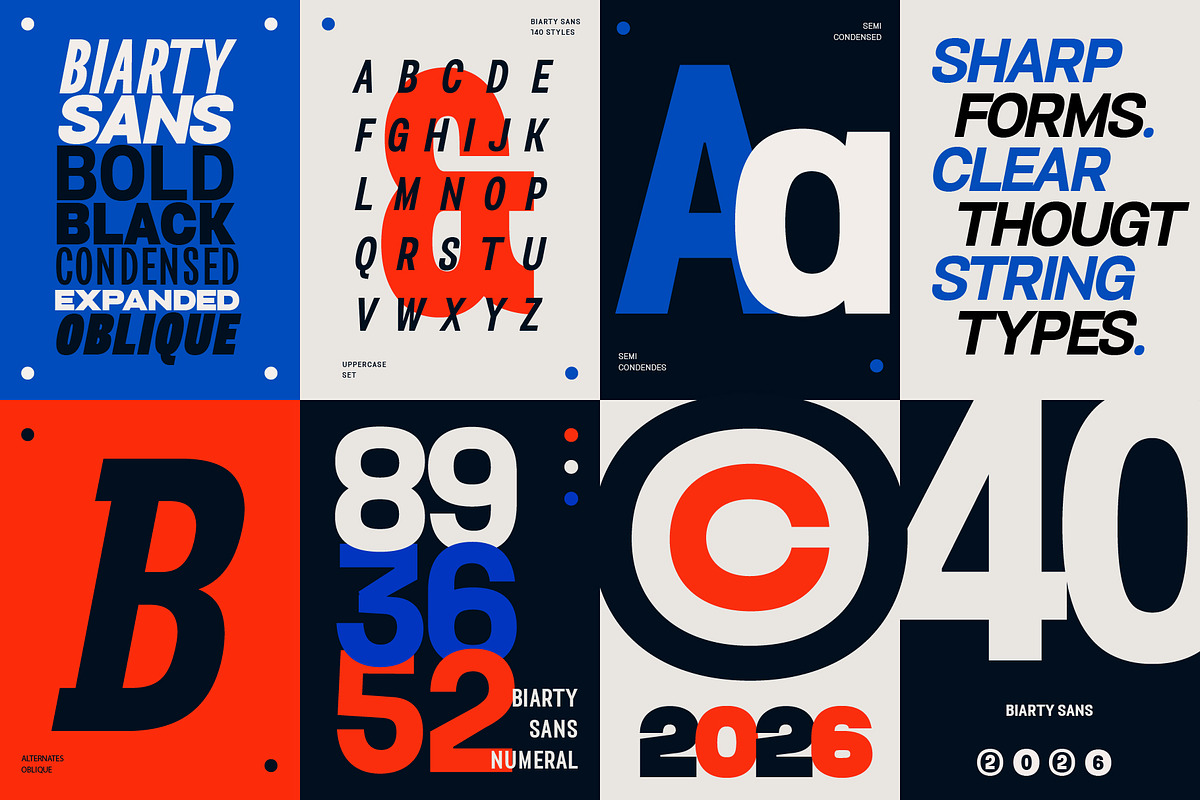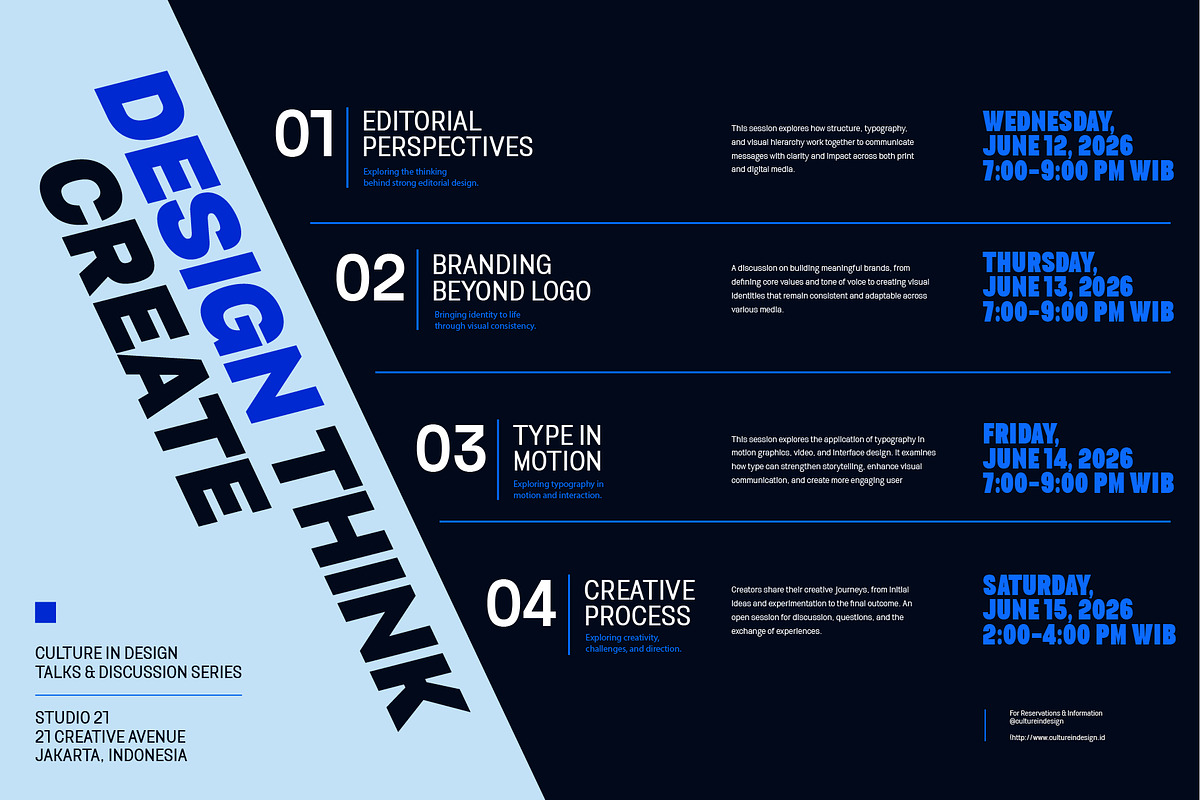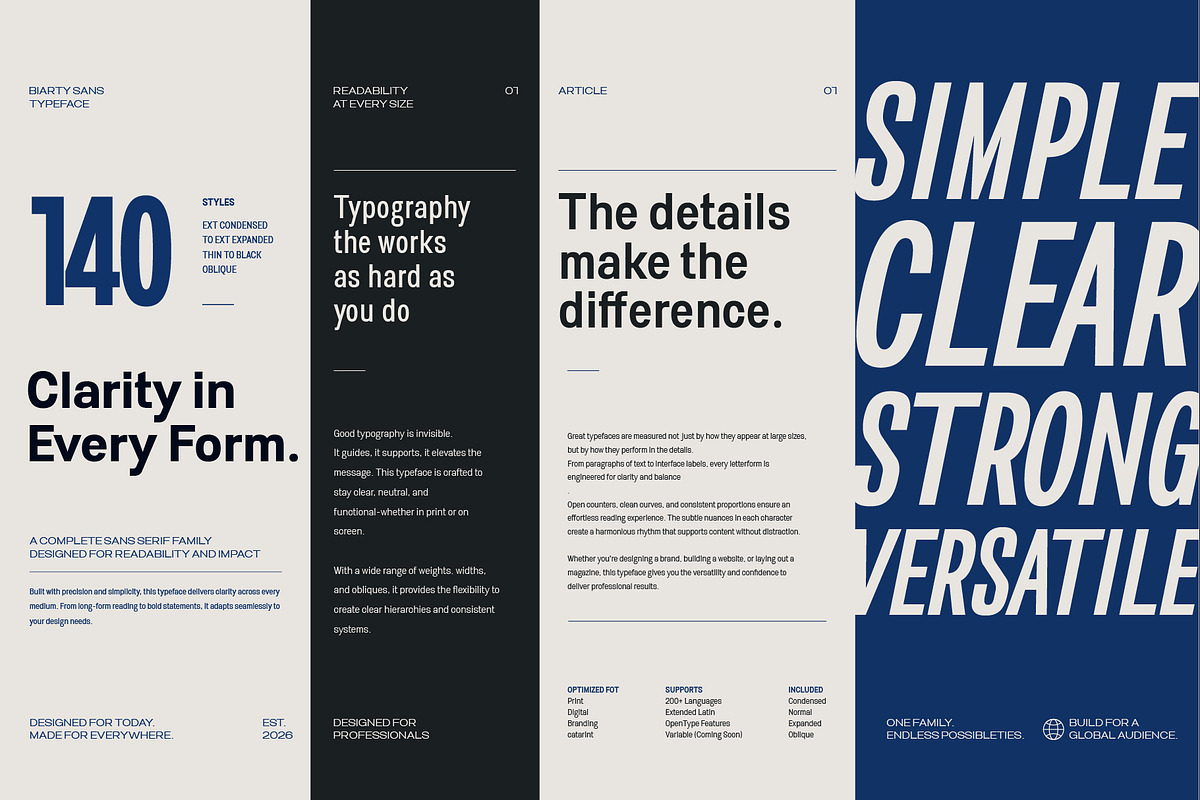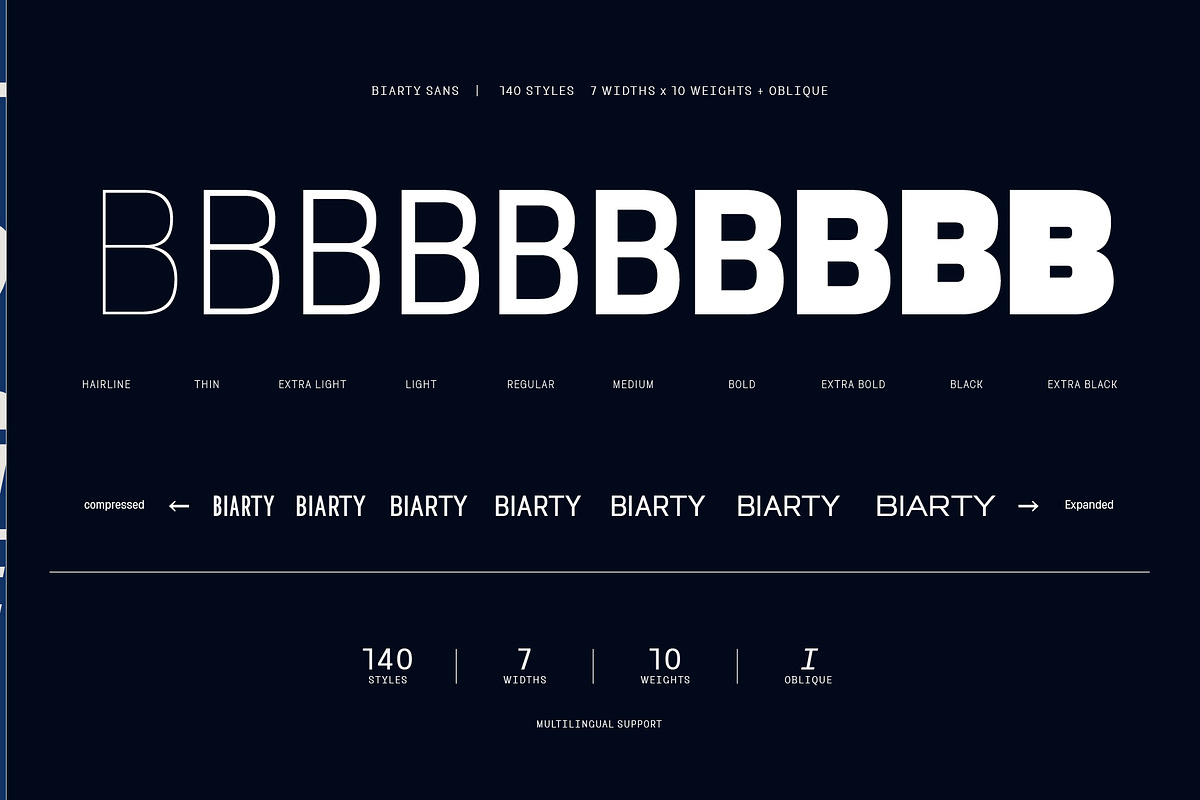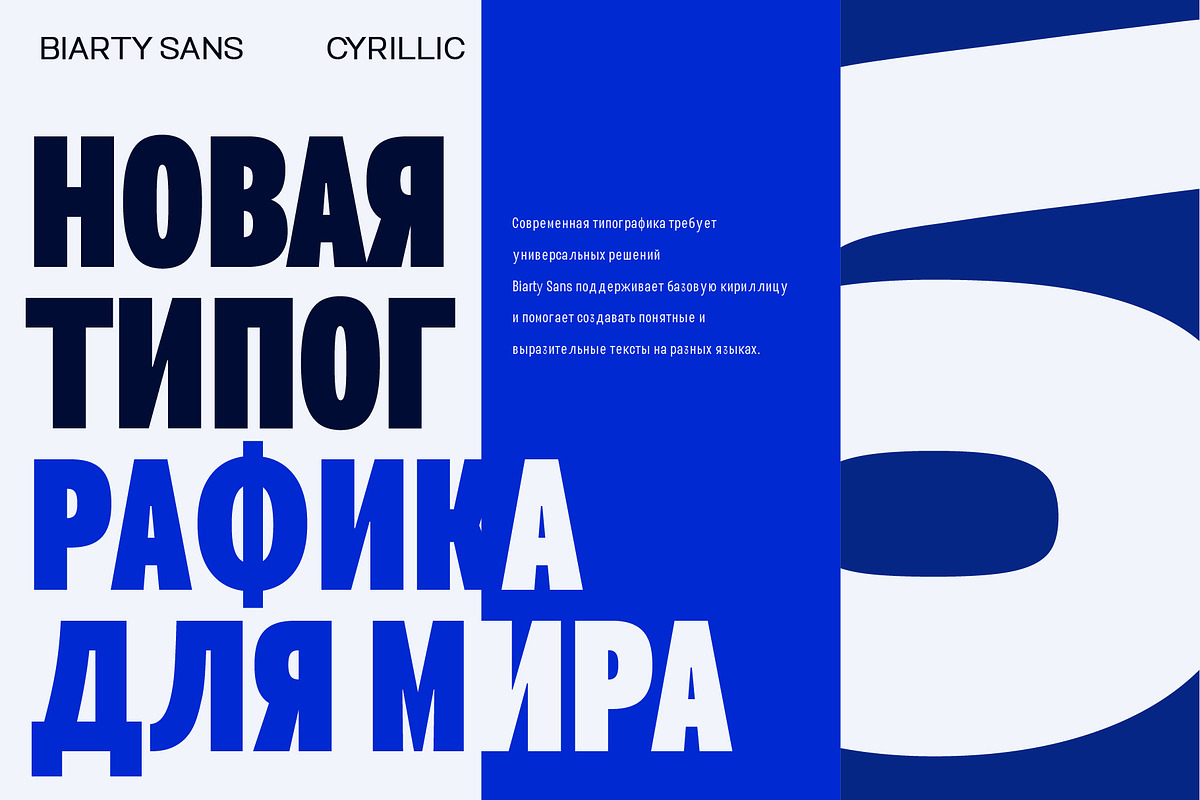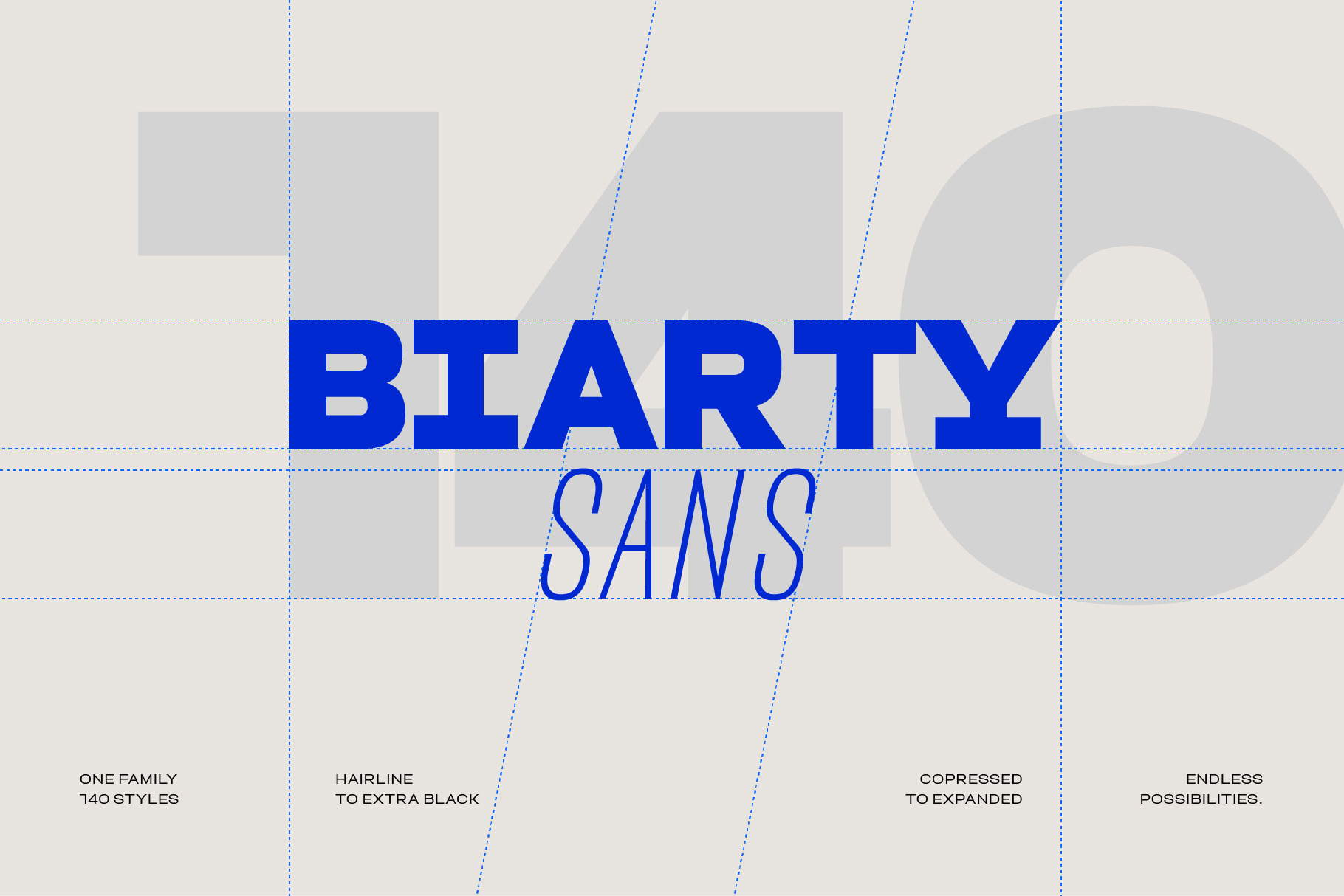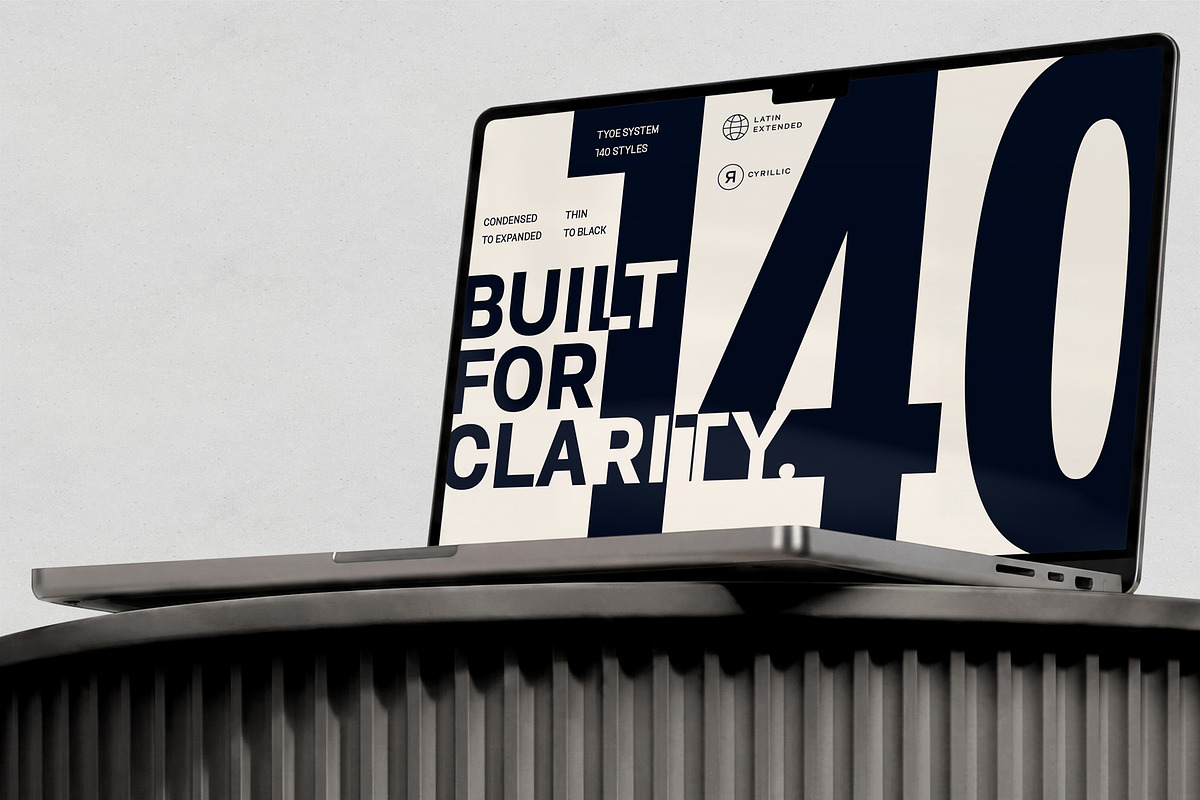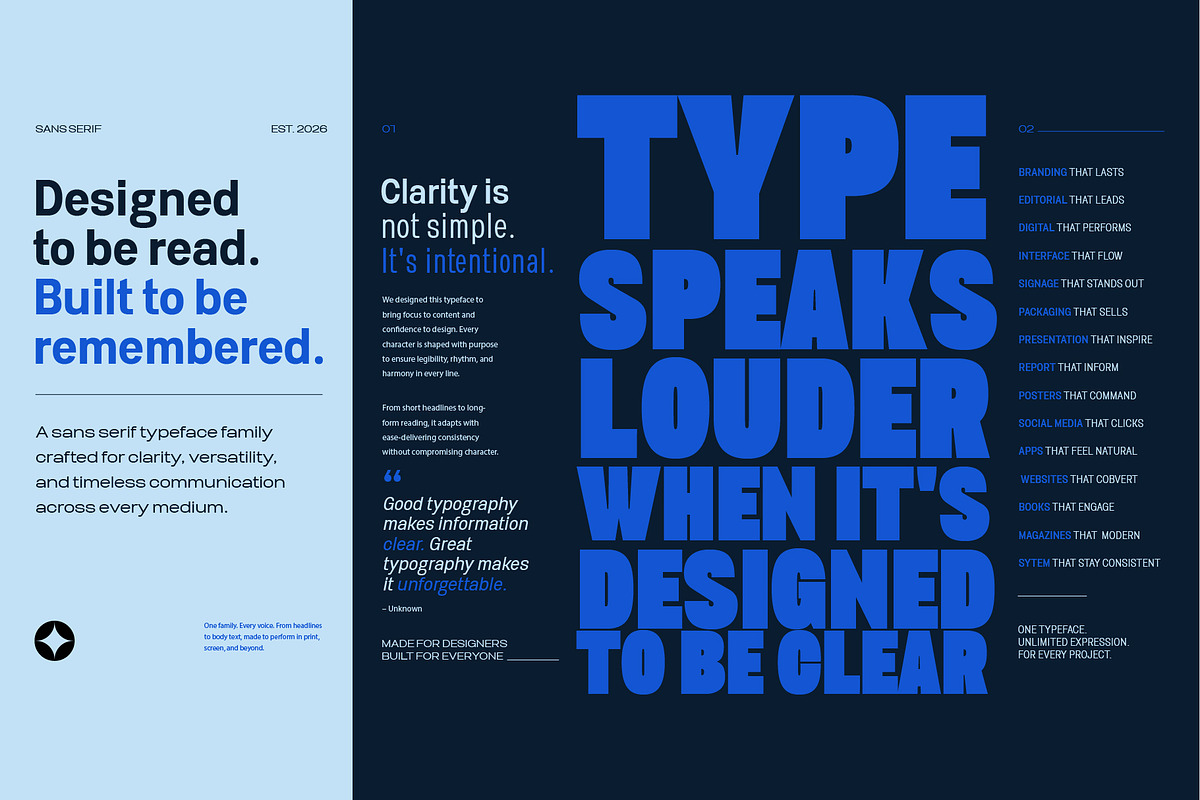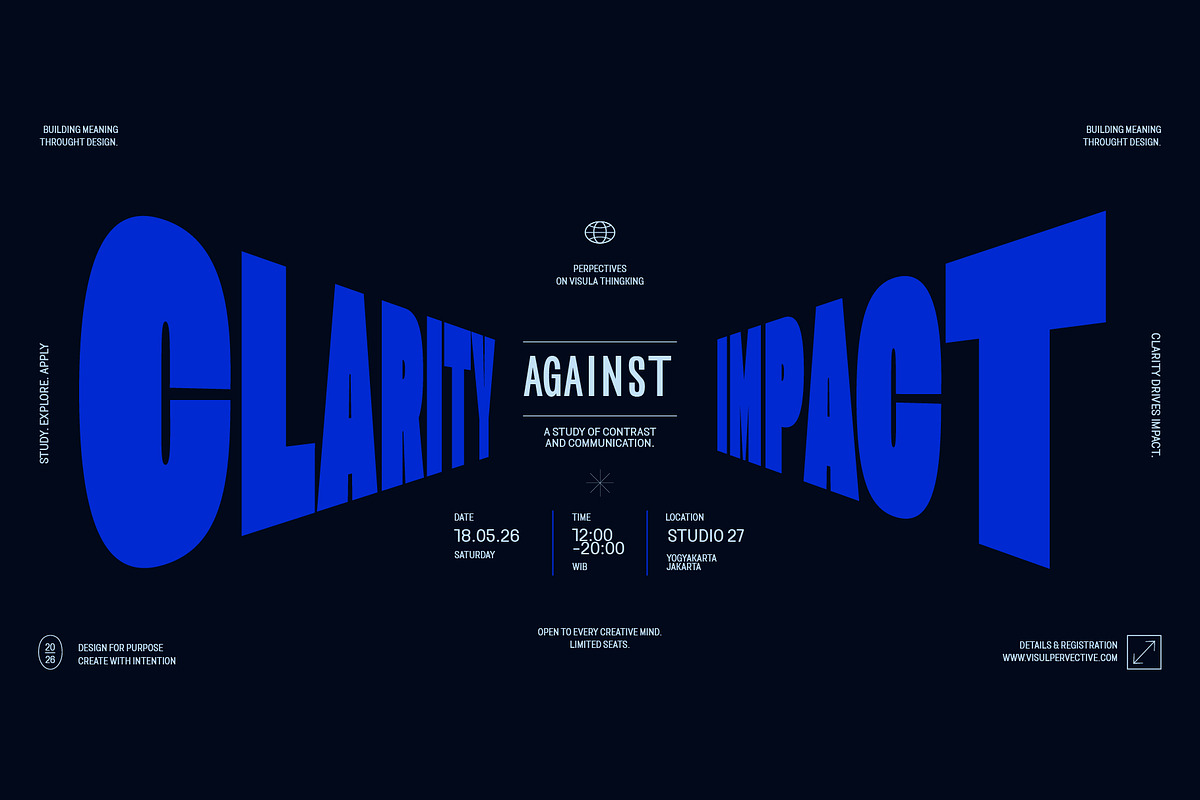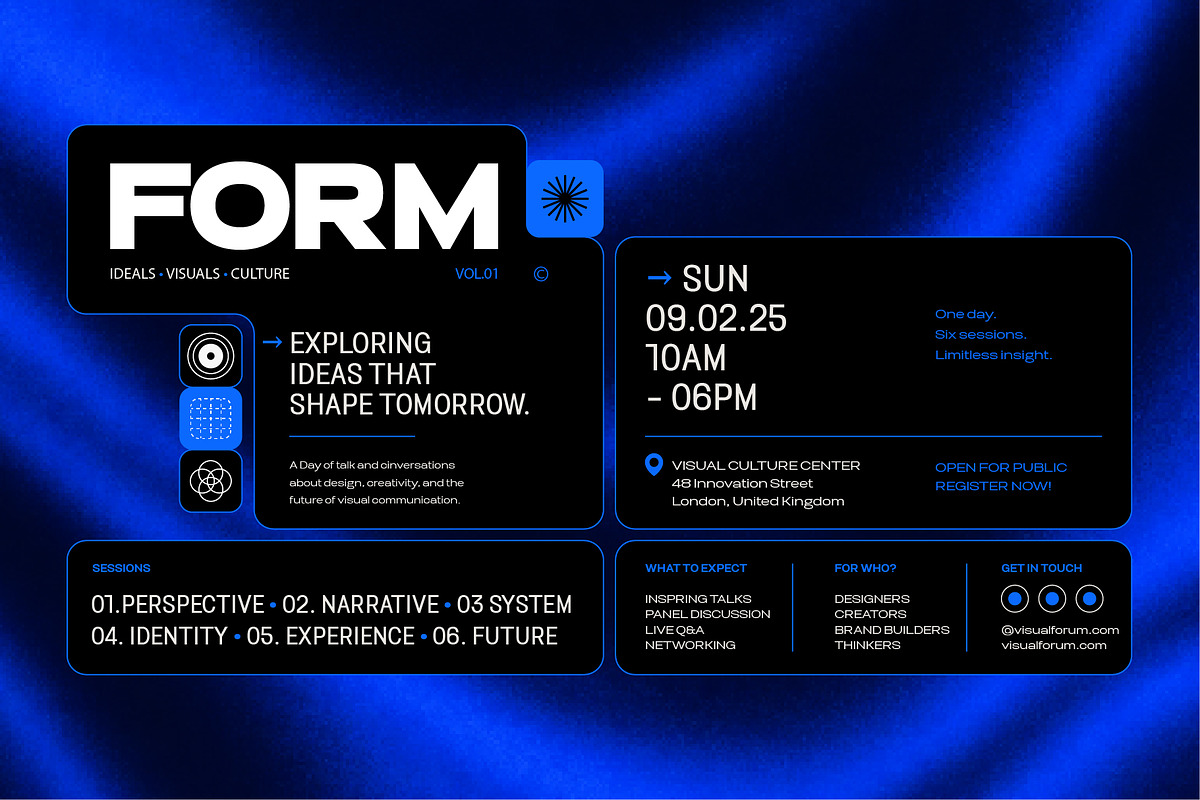
Biarty Sans — Grotesque Typeface
**Biarty Sans** is a grotesque typeface with a neutral character that still carries its own distinct presence. Clean shapes and balanced proportions make it comfortable to use across a wide range of contexts — from branding and digital UI to editorial work and signage — without losing readability or visual personality.
The scale Biarty Sans offers is substantial: 140 styles across 7 widths, ranging from condensed to expanded. This range gives you the freedom to adjust your typography to fit the layout at hand, whether you need something compact for tight spaces or wide and spacious for large display work, all within a single family.
A few features add extra practicality to Biarty Sans: support for Latin Extended and Cyrillic makes it ready for multilingual projects, ligatures smooth out specific letter combinations, and multiple numeral styles (tabular and oldstyle) make it easy to switch between tabular data and running text.
With one font family covering this much ground, Biarty Sans is well suited as a long-term typographic choice for projects that call for both consistency and flexibility.